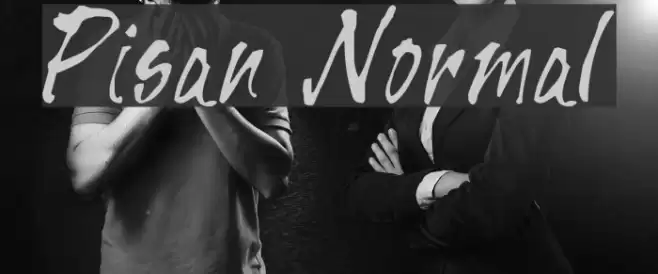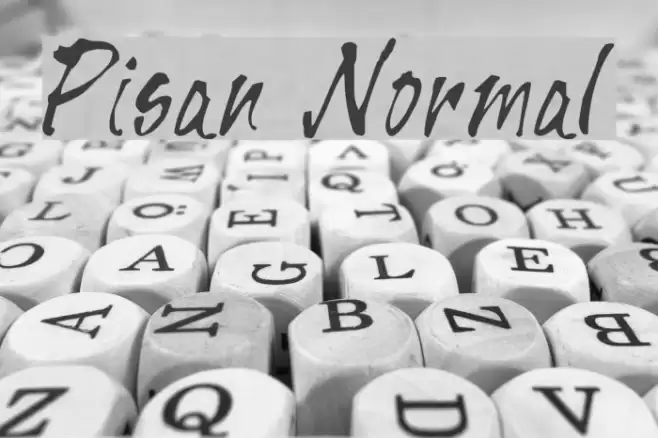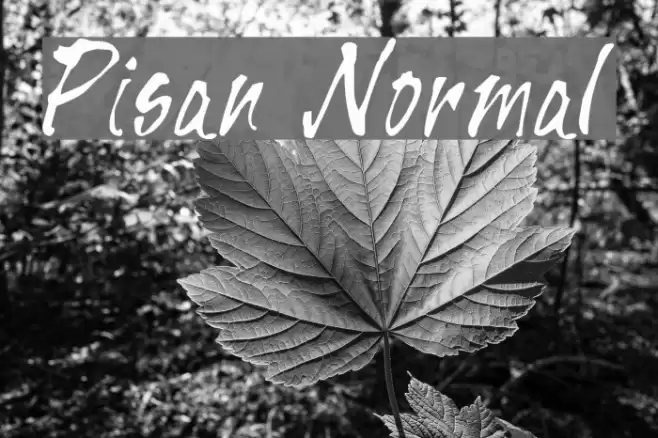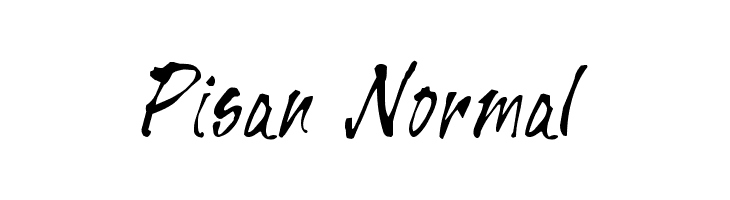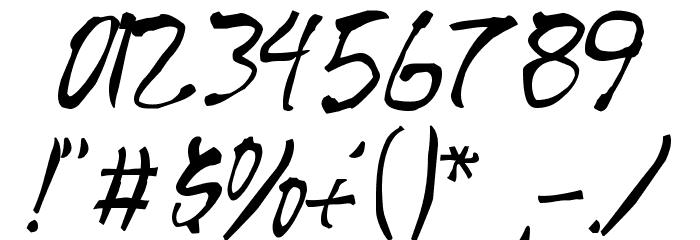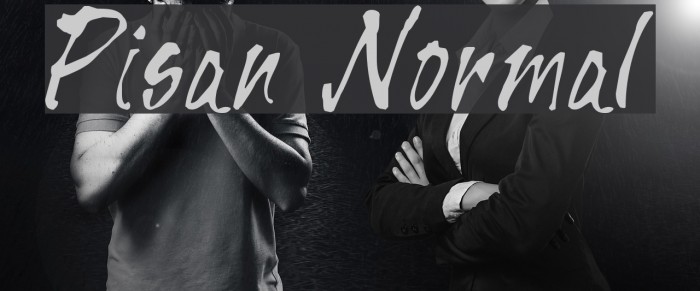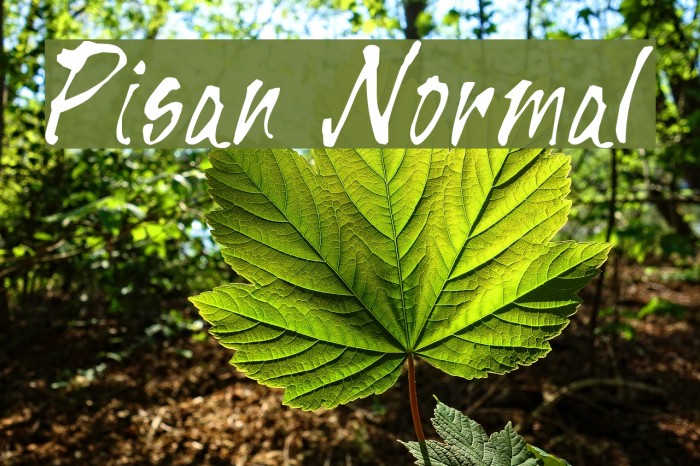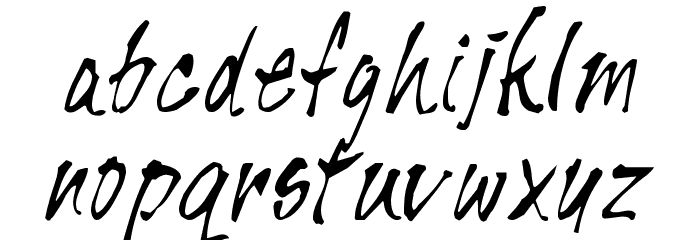
Pisan Normal Font
Pisan Normal Description
This font exhibits a dynamic and expressive handwritten style, characterized by its fluid strokes and varying line thickness. The uppercase letters are bold and slightly slanted, giving a sense of movement and energy. The lowercase letters maintain a consistent flow, with some characters featuring distinctive loops and curves. The numerals are bold and easily readable, complementing the overall style. Special characters are integrated seamlessly, maintaining the font's cohesive appearance. This font's design is both artistic and functional, making it suitable for creative projects.
A dynamic, expressive handwritten font with fluid strokes and bold characters.
- Proposed Projects: Ideal for branding, invitations, greeting cards, and artistic projects requiring a personal touch.
- Use Case: Logos, Headlines, Artistic projects